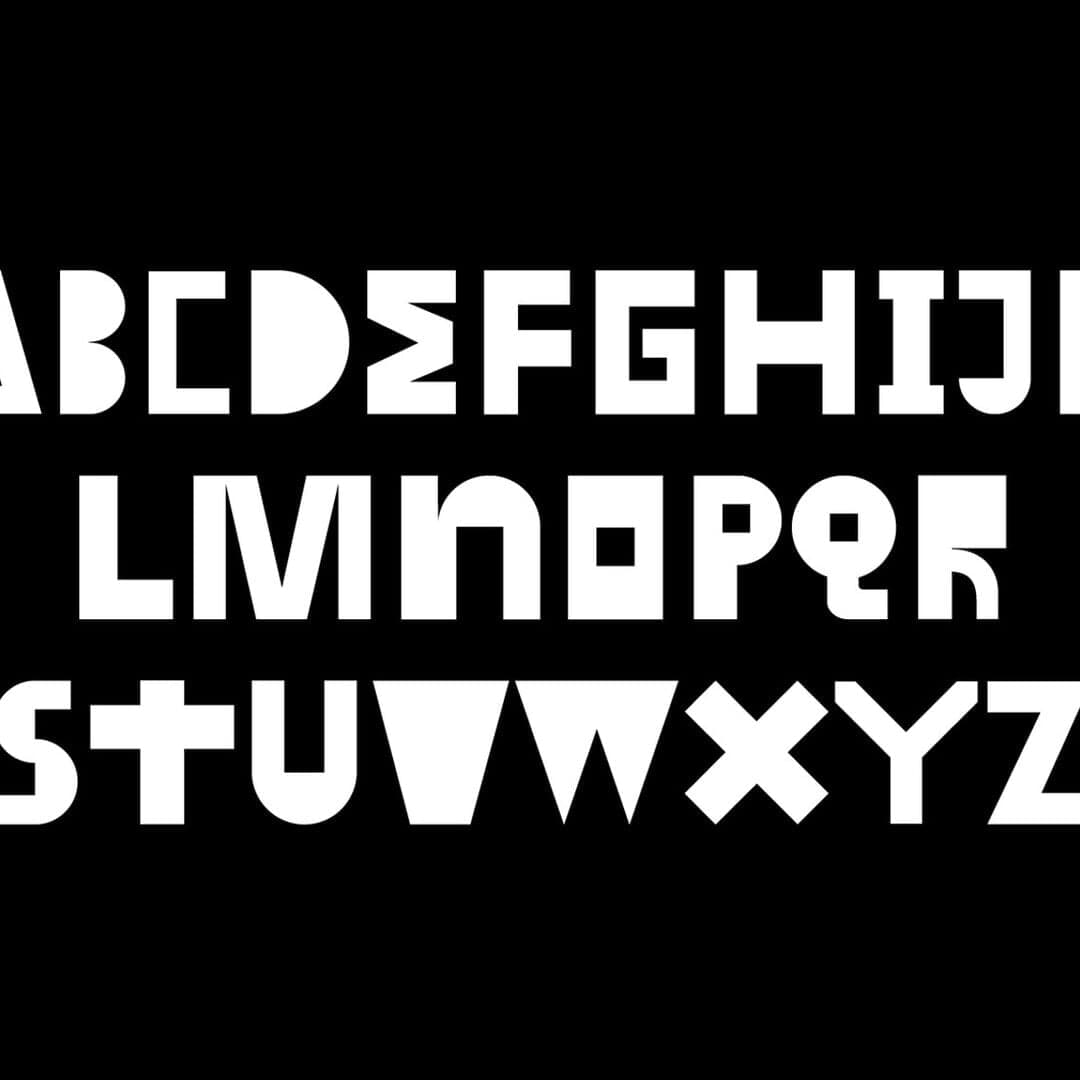
Dinamo created bespoke Cyrillic and Latin alphabets for Nike Football’s events in Moscow during the 2018 FIFA World Cup. Inspired by Russian Suprematist lettering, the typefaces were designed with interchangeable characters and accompanied by patterns and emblems for jersey customization workshops at Nike Box Gorky Park.